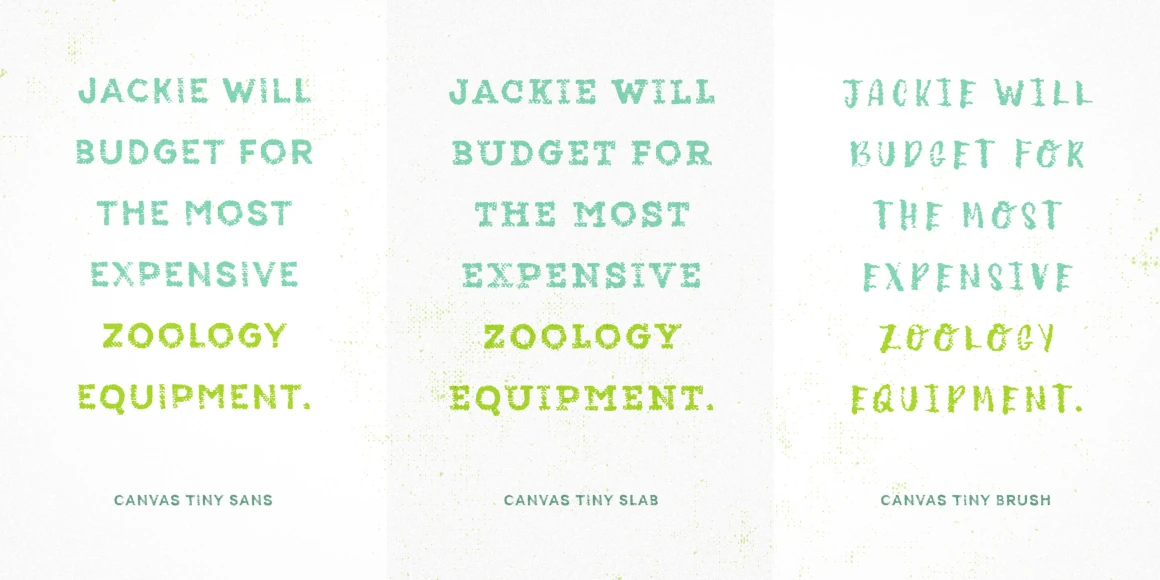
Canvas Tiny
From Yellow Design Studio
Canvas Tiny is part of the Canvas Acrylic Megafamily. It’s casual sans designed to look great at very small sizes. It features authentic, hi-res texture that retains its realism even at very large sizes. A bonus set of complimentary vector background textures, shapes and elements is available from the site.
Designed by Ryan Martinson & Rhea Martinson
Canvas Tiny Brush
Canvas Tiny Sans
Canvas Tiny Slab